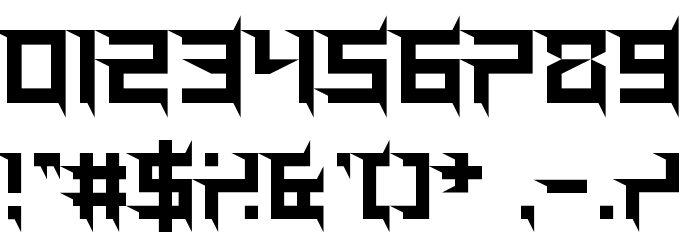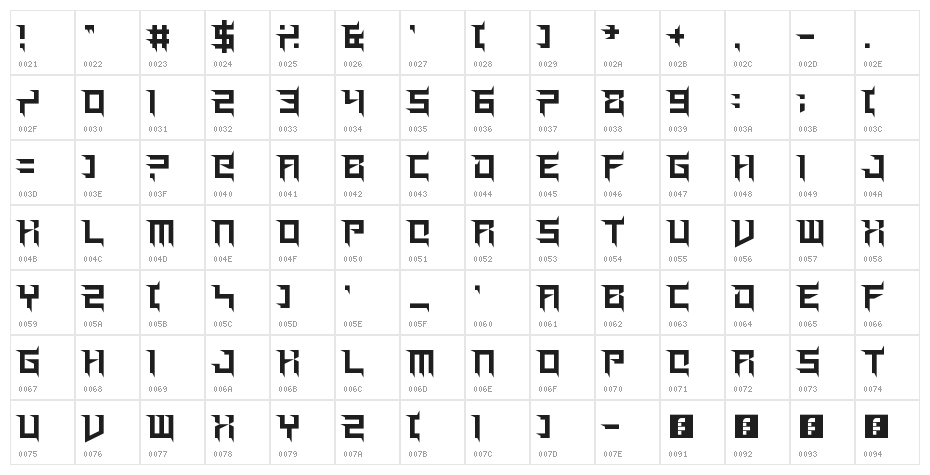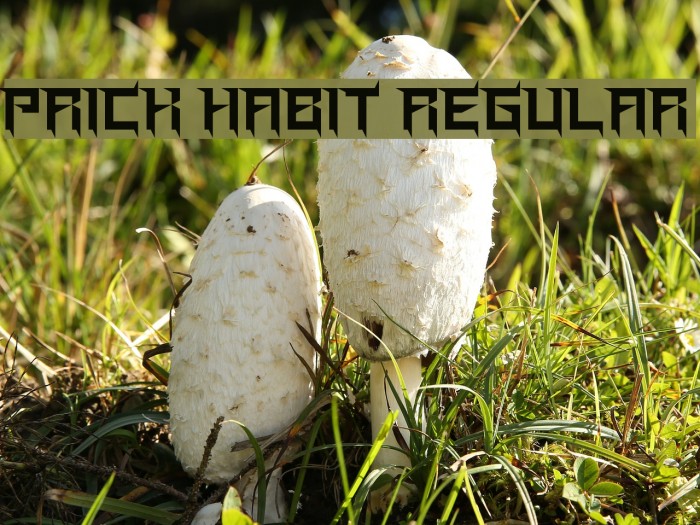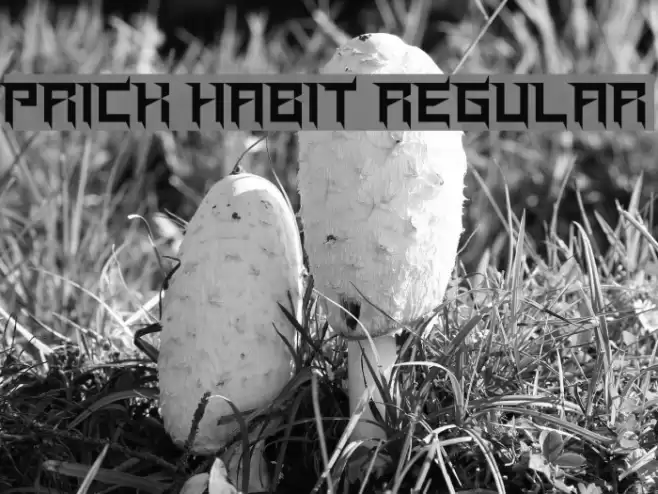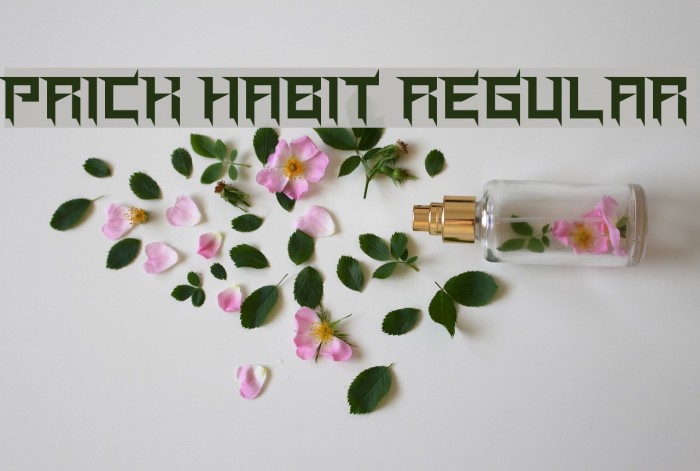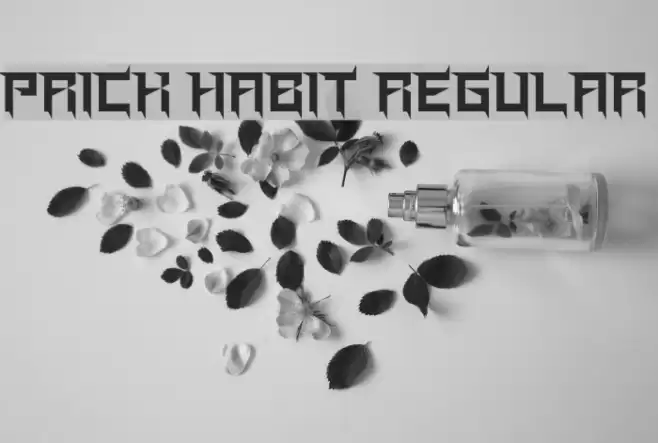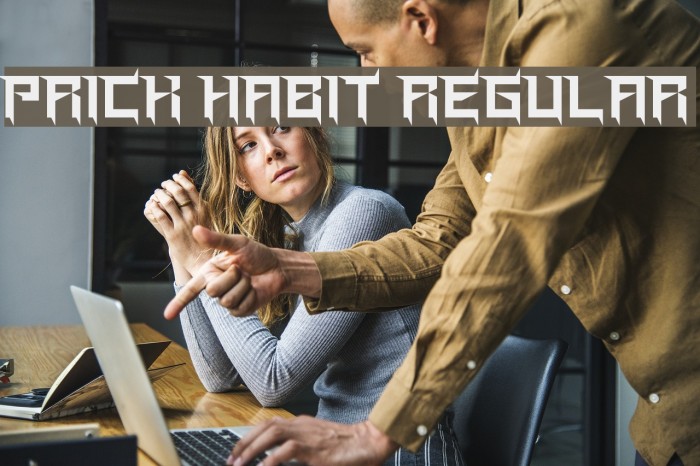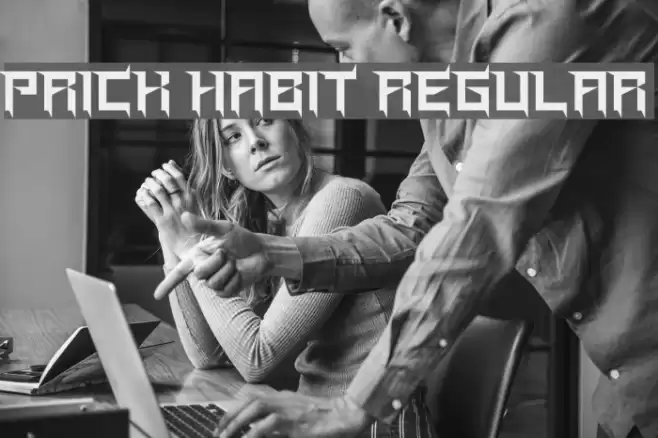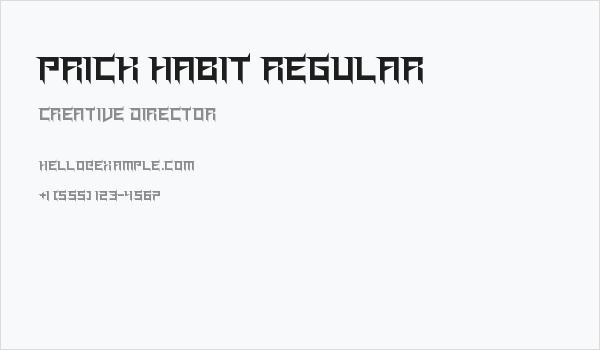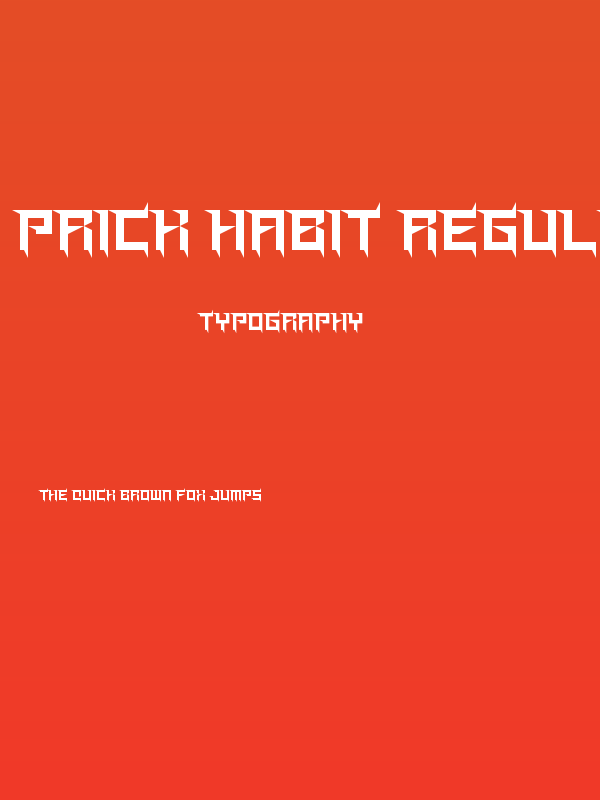
Prick Habit Regular Font
Prick Habit Regular Description
This font features a bold and angular design, characterized by sharp, pointed edges and a geometric structure. The uppercase and lowercase letters maintain a consistent style, with a strong emphasis on vertical and horizontal lines. The numerals and special characters follow the same angular theme, creating a cohesive and striking appearance. This font's unique style makes it stand out, offering a modern and edgy aesthetic that is both eye-catching and memorable.
| Proposed Projects | Ideal for projects requiring a modern and edgy look, such as music album covers, video game graphics, or branding for tech companies. |